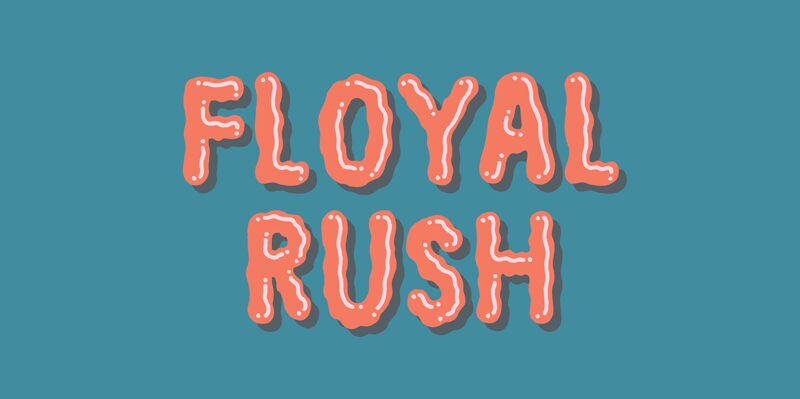
Floyal Rush DEMO Regular
Floyal Rush, crafted by the imaginative Pizzadude, stands out as a display font with a playful heart. This semi-light, semi-condensed typeface is teeming with character, perfect for projects that call for a touch of whimsy. Handmade with care, it exudes an organic charm and a funky wobble that seem to dance off the page.
With its roots in graffiti art yet bursting with cartoon flair, Floyal Rush invites designers to infuse their work with joviality and spirit. Ideal for short words and spirited shout-outs, this font dares creatives to use it in unexpected ways. Whether for logos, packaging or comic book dialogue, Floyal Rush promises to inject your designs with an affable energy that's hard to ignore.